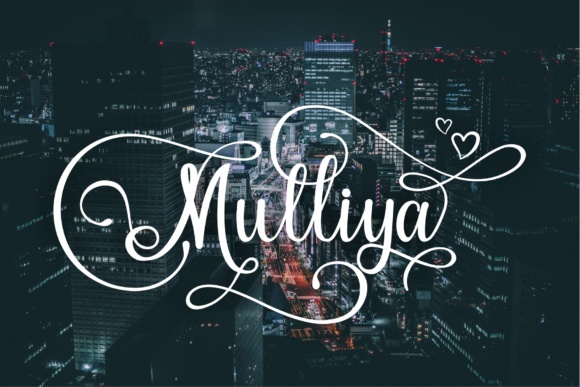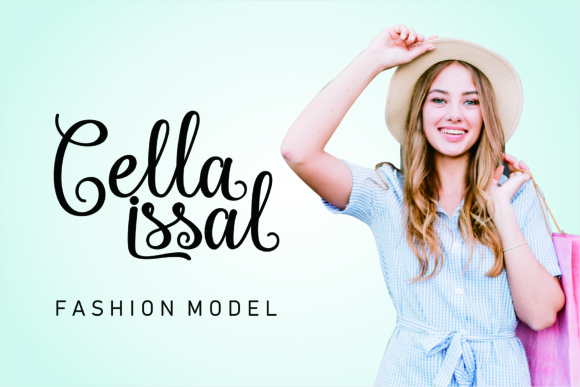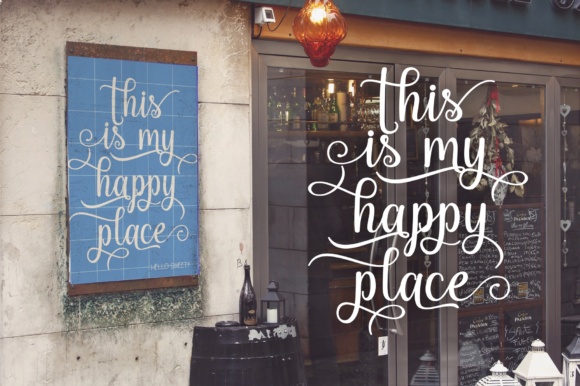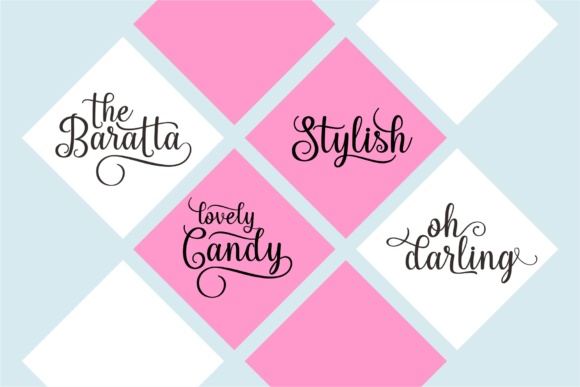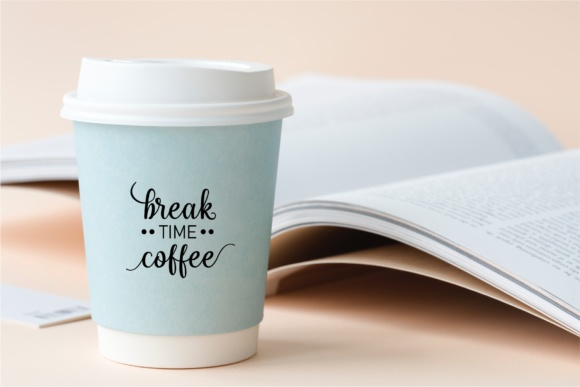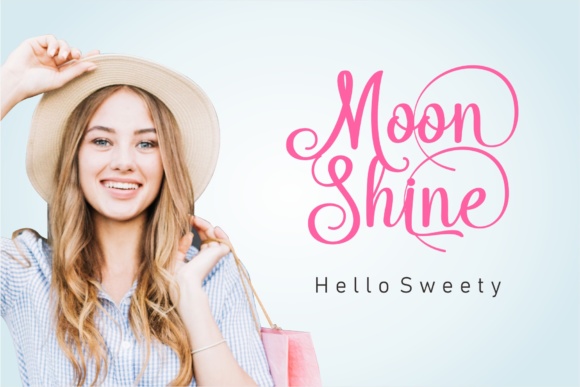
Do you ever find yourself scribbling notes, brainstorming ideas, or simply doodling in a notebook, lost in the flow of creative expression? It’s a moment where time stands still, and the world fades away, leaving only the thrill of bringing something new to life. For designers, this moment is a familiar friend, one that often sparks the need for the perfect font to match the vision.
That’s where the Hello Sweety Font comes in – a beautiful script font that exudes elegance and charm. With its extensive library of over 730 alternate characters and ligatures, it’s the perfect tool for creating stunning calligraphy designs that are sure to leave a lasting impression.
For designers looking to elevate their craft and add a touch of sophistication to their work, the Hello Sweety Font is a valuable asset. Its versatility and expressive qualities make it an ideal choice for a wide range of projects, from invitations to social media graphics.
Hello Sweety Font Key Features
- Font Family: Hello Sweety Font
- Unique Characteristics: Features a playful, cursive script with swashes and flourishes, making it ideal for creative and romantic designs
Hello Sweety Font Review
I recently had the chance to work with the Hello Sweety Font, and I must say it’s an interesting addition to the font family. Here are my thoughts on what works well and what could be improved.
- Unique design: The Hello Sweety Font has a distinct, playful style that’s perfect for creating eye-catching headlines and titles.
- Cute and whimsical: The font’s character is great for projects that need a touch of sweetness and innocence.
- Good for creative projects: Hello Sweety Font is ideal for artistic projects, such as children’s books, greeting cards, and other creative endeavors.
- Limited legibility: The font’s design can make it difficult to read at smaller sizes, especially in formal or professional contexts.
- Not suitable for body text: Due to its playful style, the Hello Sweety Font is best used for headings and titles, rather than body text.
Overall, the Hello Sweety Font is a great choice for designers who want to add a touch of playfulness and whimsy to their projects. While it may have some limitations, its unique design and cute character make it a great addition to any font collection.
The Hello Sweety Font is ideal for creating playful and modern designs. Use it for:
- Social media graphics and ads
- Branding and logo designs
Alternatives to Hello Sweety Font
Hello Sweety Font is a script font known for its playful and elegant feel. It’s often used in wedding invitations, greeting cards, and other creative projects. However, if you’re looking for alternatives, here are a few options:
Great Vibes is a modern script font that conveys a sense of relaxation and happiness. It’s perfect for projects that require a casual and friendly tone. Compared to Hello Sweety Font, Great Vibes is more relaxed and has a wider range of characters, making it a great choice for longer text.
Carolyna Pro is a sophisticated script font that exudes elegance and refinement. It’s ideal for high-end projects, such as luxury branding, wedding invitations, and fine art. Compared to Hello Sweety Font, Carolyna Pro is more formal and has a more refined feel, making it a great choice for projects that require a touch of sophistication.
Alex Brush is a beautiful script font that features a flowing, handwritten feel. It’s perfect for projects that require a personal and intimate tone. Compared to Hello Sweety Font, Alex Brush is more personal and has a more organic feel, making it a great choice for projects that require a sense of warmth and connection.
Ostrich Sans is a modern sans-serif font that features a unique, handwritten feel. It’s ideal for projects that require a bold and playful tone. Compared to Hello Sweety Font, Ostrich Sans is more modern and has a more edgy feel, making it a great choice for projects that require a touch of sophistication and playfulness.